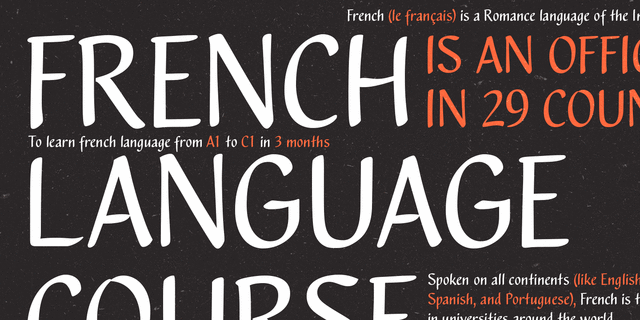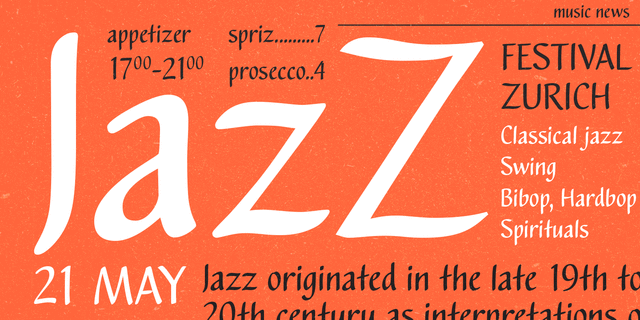
About MasterFloAn original display typeface was designed by Natalia Vasilyeva for ParaType in 2007. It is freestyle script based on handwriting. The face inspired by flat-nib felted pen or brush calligraphy. For use in short texts and informal headlines.
artistic, harmonious, pleasant, cozy, comfortable, friendly, kind, polite, calm, traditional, cultural, noble, cultured, educated, beautiful, orderly, optimistic, Soft, leisurely, cute, cartoonish, family, festive, home, nice, peaceful